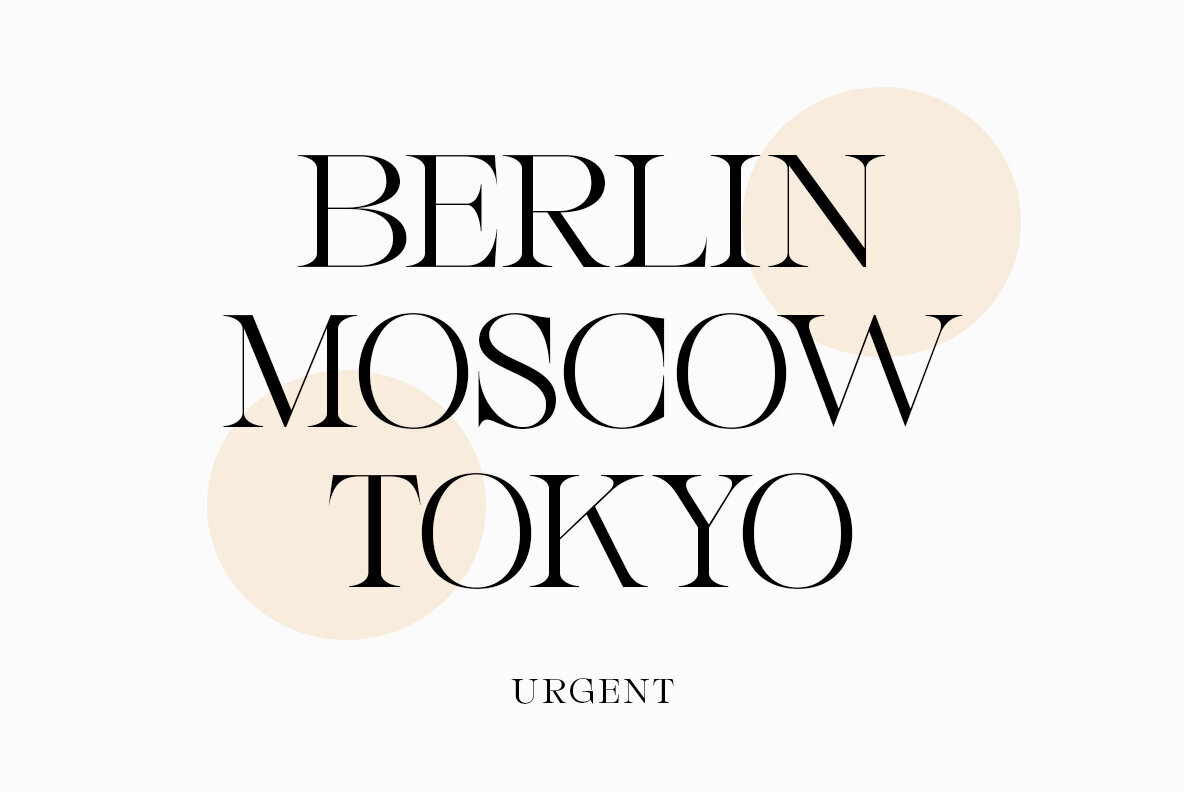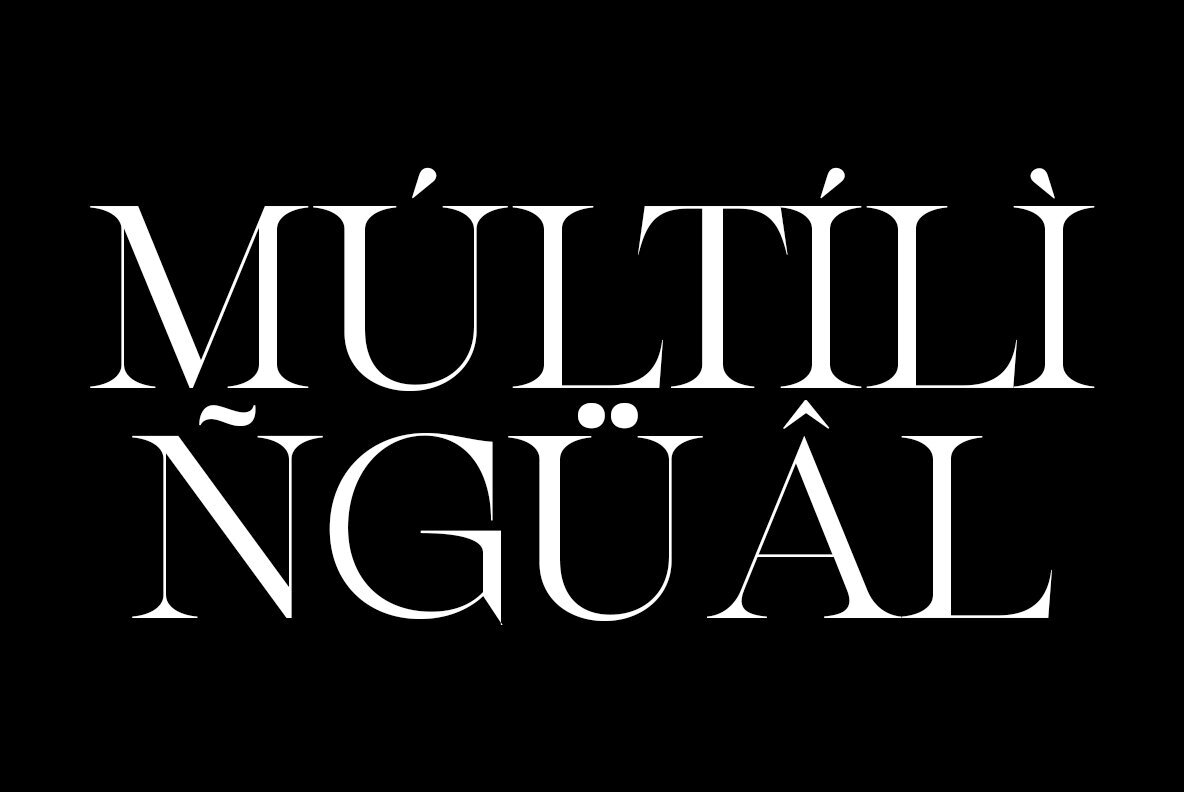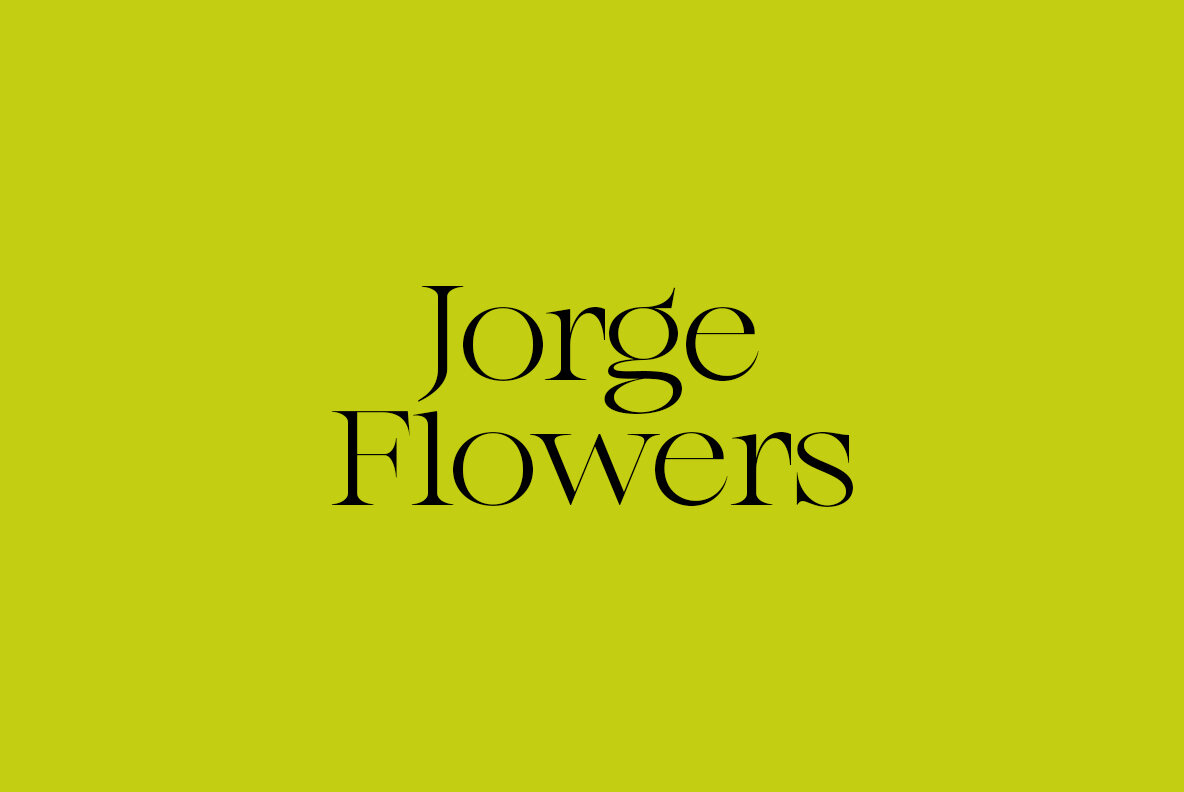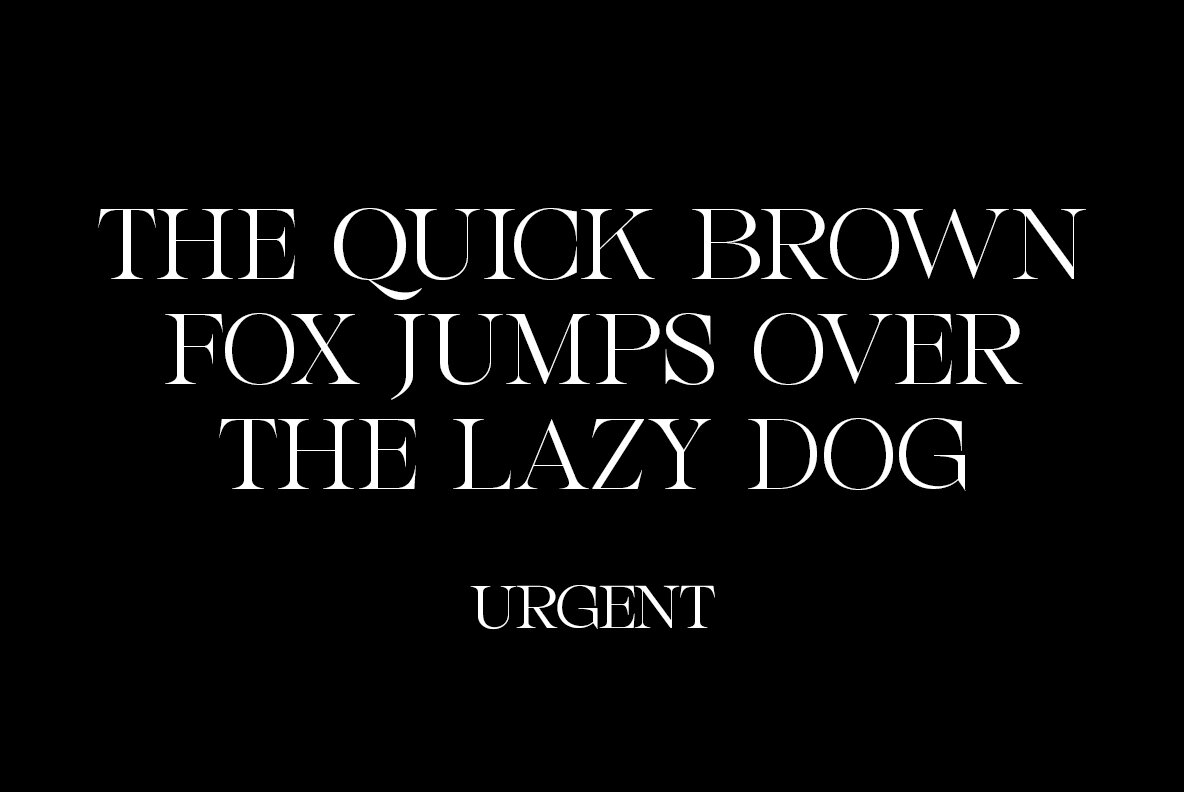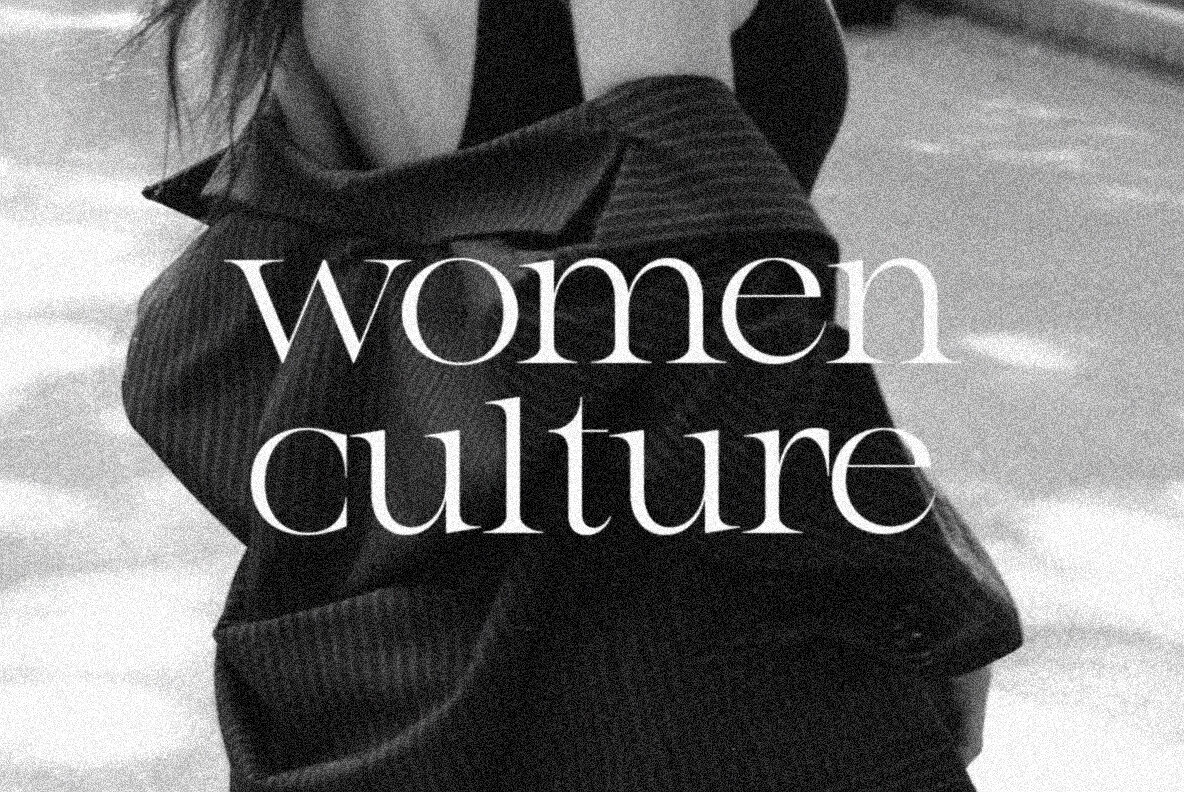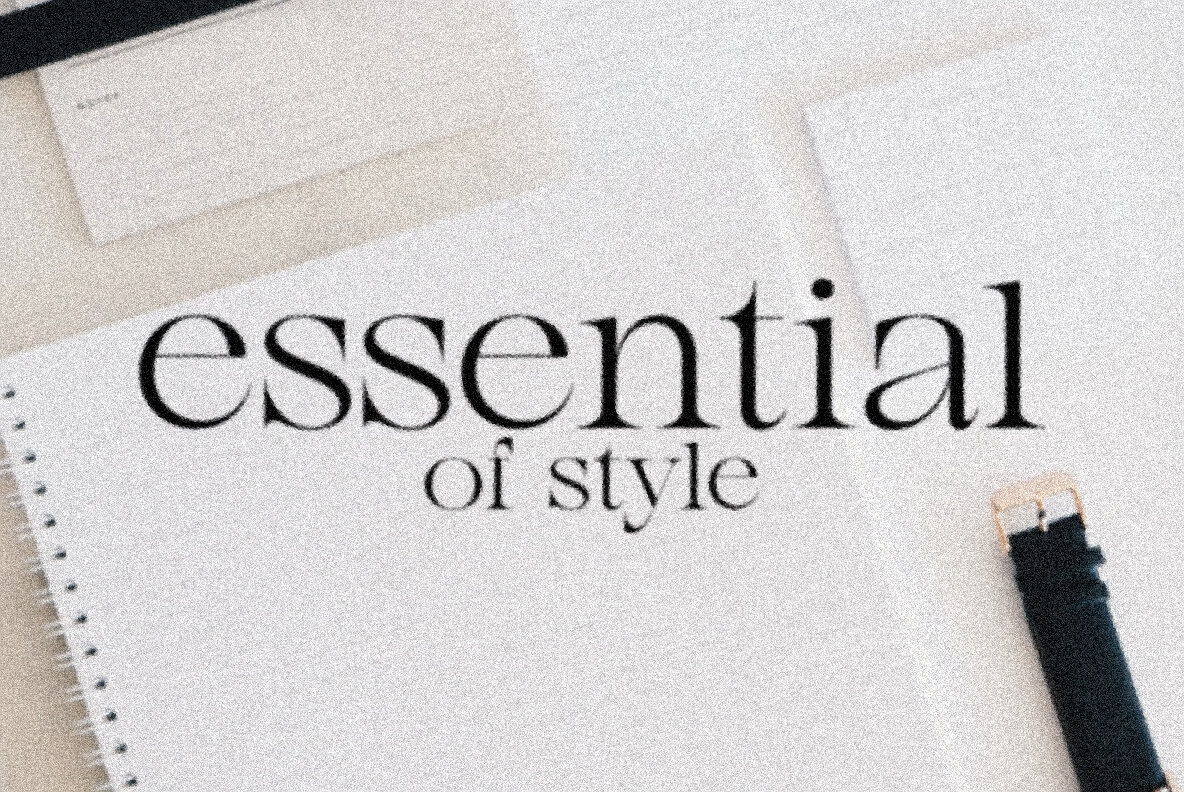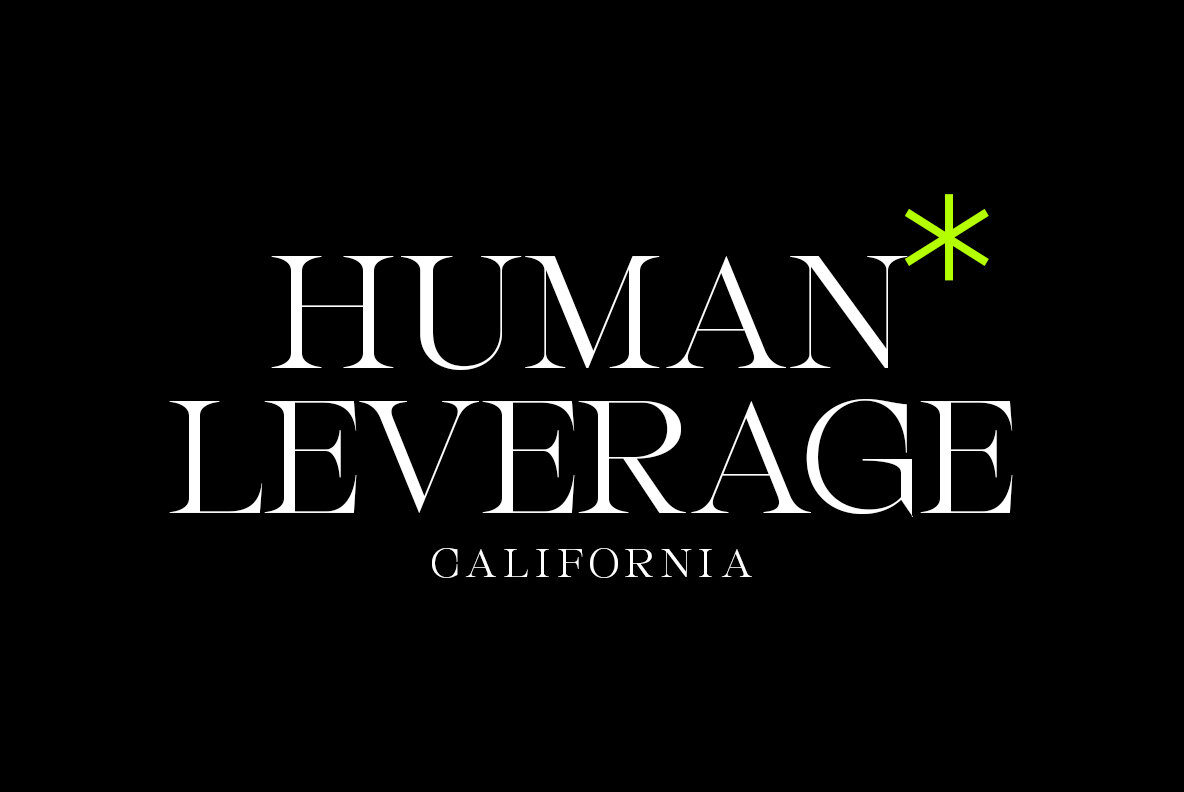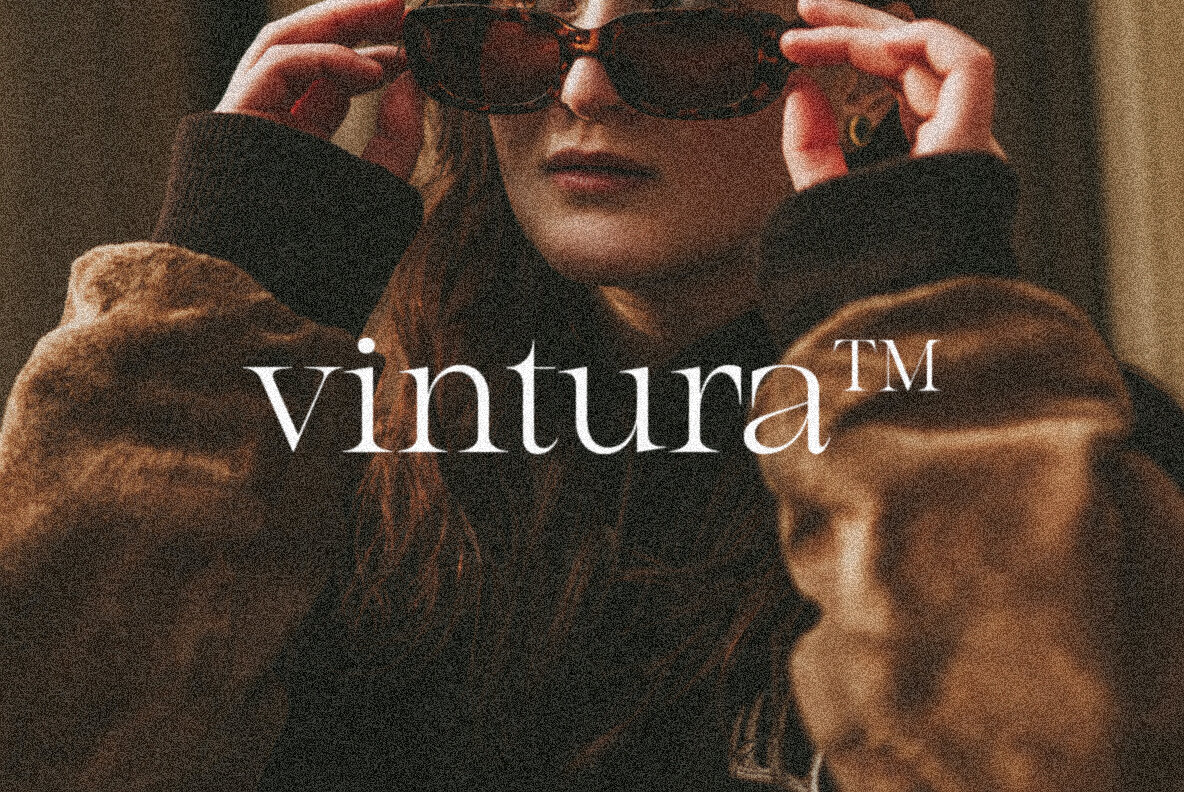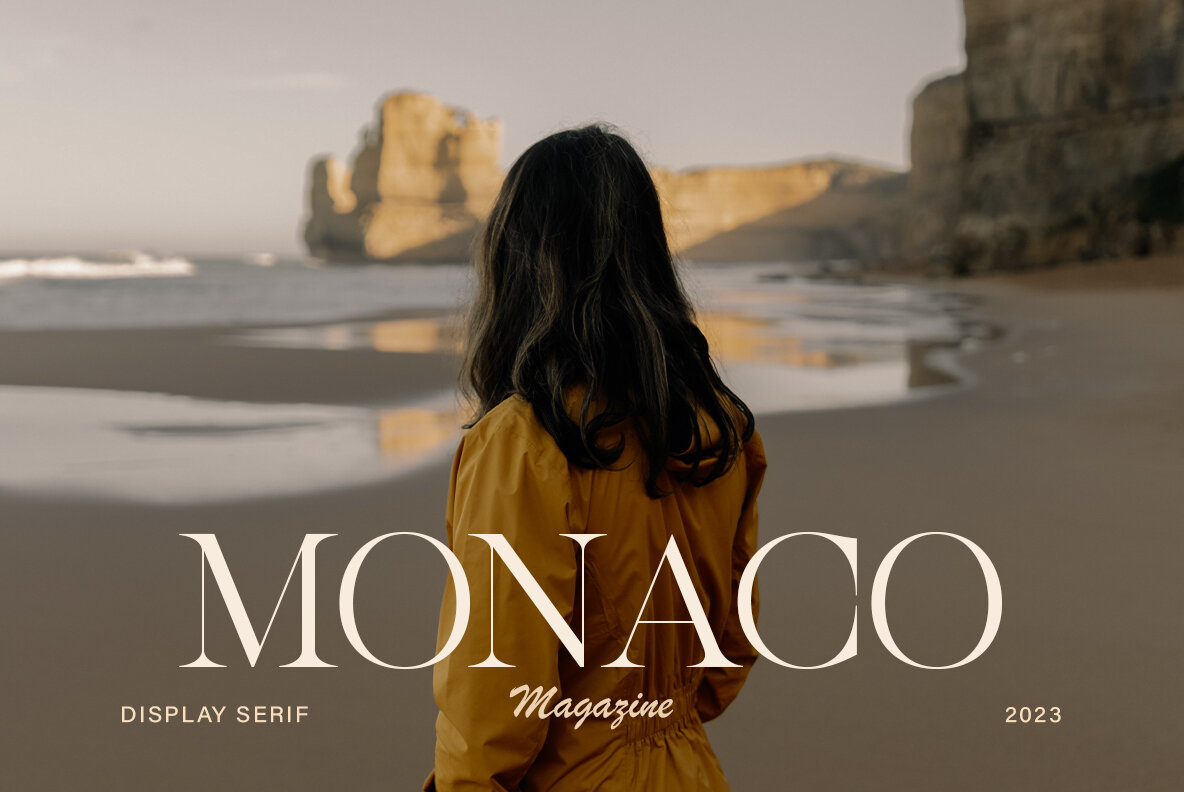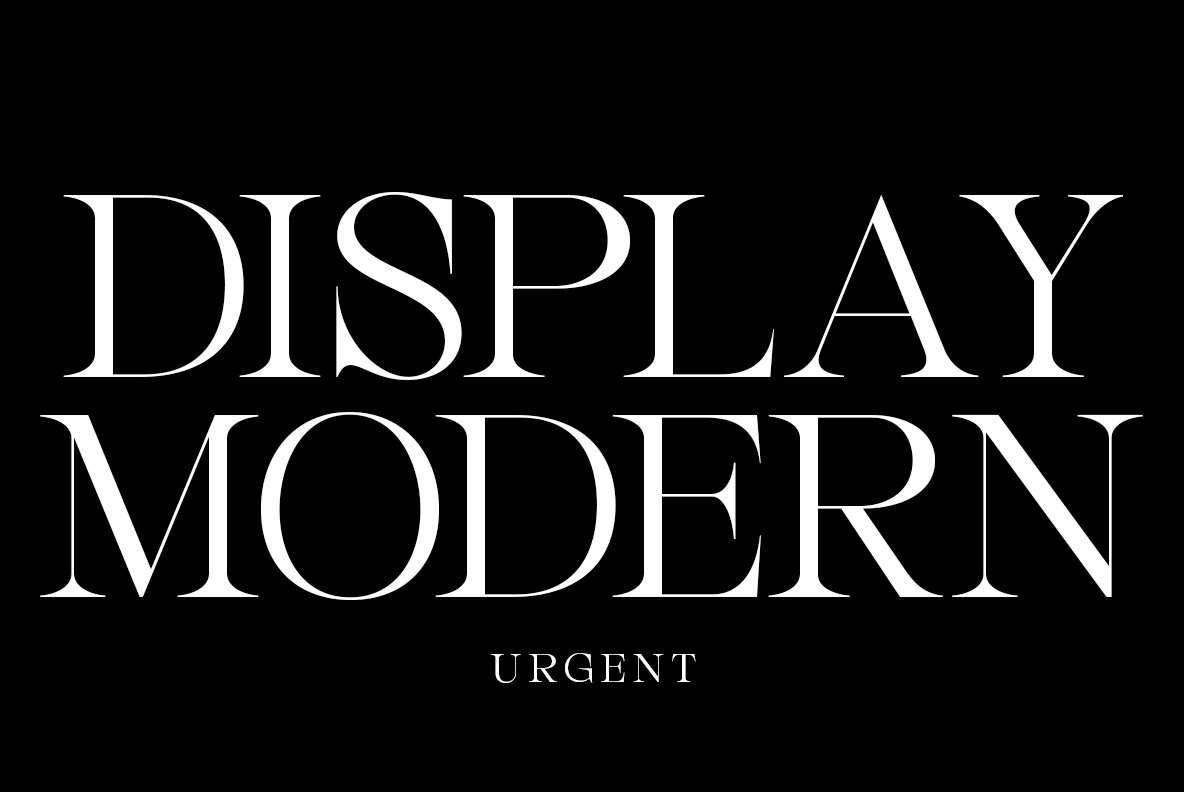
Urgent Font
URGENT Regular
URGENT is a typeface that elegantly merges strength with refined style. Featuring robust yet fluid letterforms, this font makes a bold yet sophisticated statement in any design. Its sleek, modern lines are enriched with timeless serif details, making it ideal for projects that demand a strong visual presence. Use URGENT for headlines, website titles, and graphic design endeavors where prominence is key.Urgent: Elegant Serif with Visual Impact